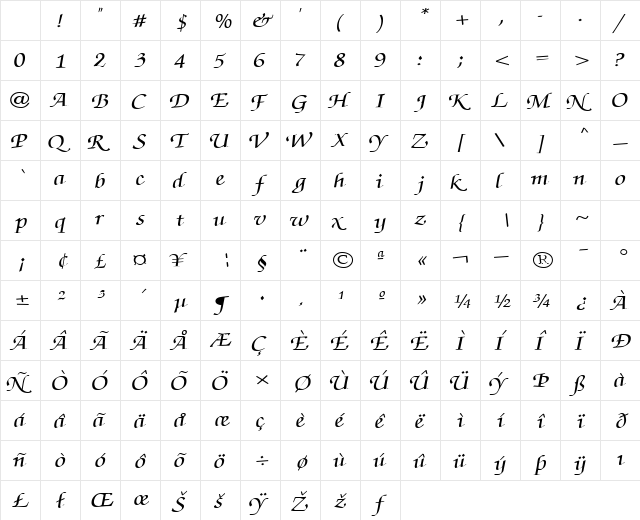
Complete Christian Regular glyph index. Displaying only characters natively supported by Christian Regular font.
Christian is a composed and adaptable typeface that performs quietly and consistently across a wide range of design contexts.